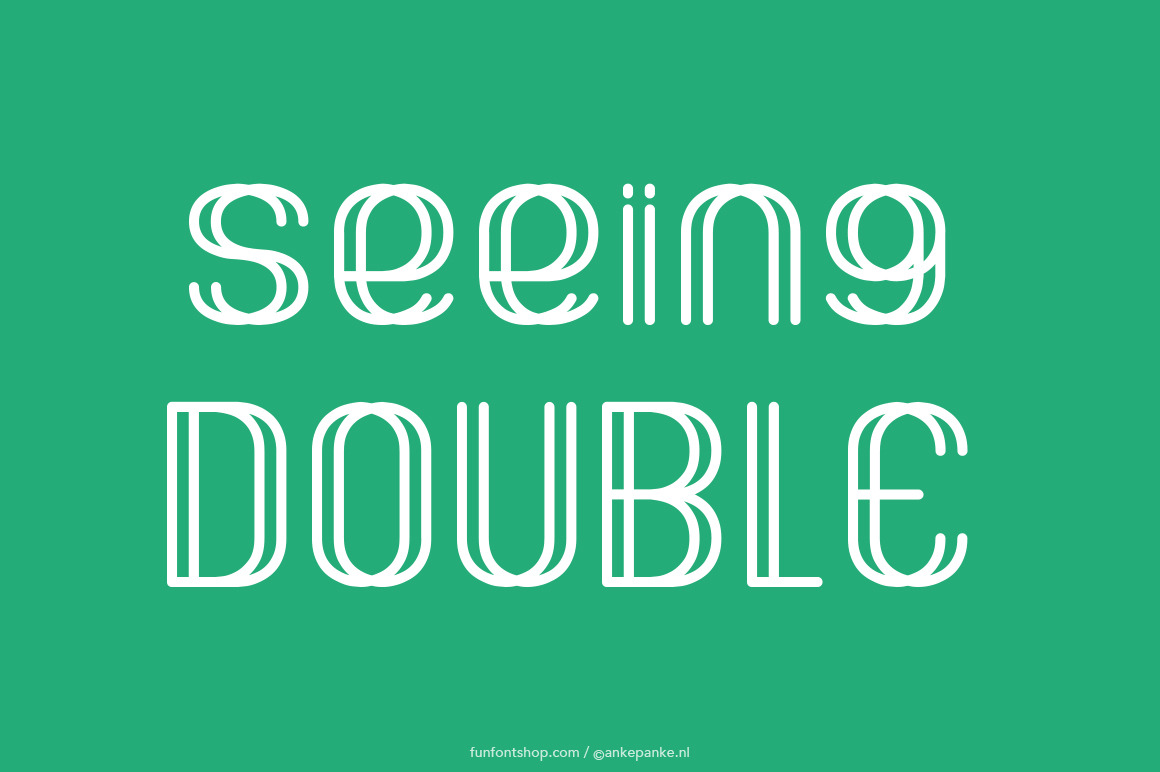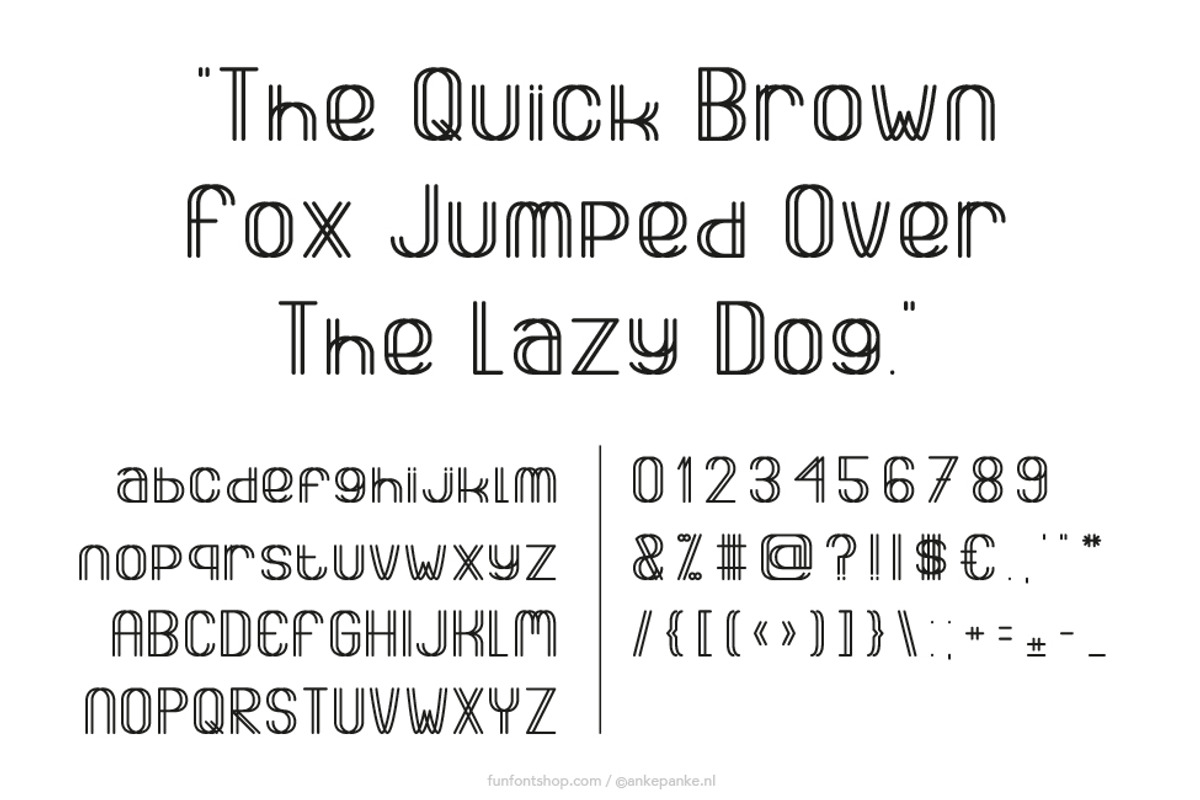
Seeing Double Font
Why just once, when twice is so much more fun? This font is created digitally, so big or small: it's always clean.
- Letters Uppercase, lowercase and numbers
- Punctuation !?#%&*±+=-_,.:;'"/|€$@({[]})